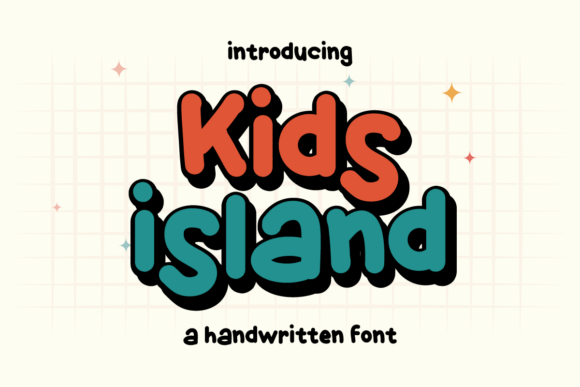
Unlock the Magic of Kids Island Font
Who among us hasn’t had a moment where they see a beautiful, hand-drawn font and just can’t help but feel a surge of creative energy? For designers, it’s that spark of inspiration that can lead to something truly special. And that’s exactly what the Kids Island Font is all about – bringing joy and creativity to any project.
Designed to evoke a sense of playfulness and friendliness, Kids Island Font is perfect for kid-themed designs, classroom projects, and cheerful branding. With its soft curves and bubbly style, this font is sure to add a happy, colorful vibe to any design. Whether you’re a seasoned pro or just starting out, the Kids Island Font is an invaluable addition to any designer’s toolkit.
Kids Island Font Key Features
- Unique Characteristics: Designed specifically for children’s educational materials, features a playful and engaging style with bold lines and rounded shapes
- Language Support: Supports Latin-based languages, including English, Spanish, French, and many others
- Font Variations: Includes 6 font weights (Light, Regular, Medium, Bold, Heavy, Black) and 3 font styles (Regular, Italic, Bold Italic)
Kids Island Font Review
Overall, I think the Kids Island Font has a lot of potential. ✨ The playful, whimsical feel it brings to any design project is sure to capture the attention of kids and parents alike. The font’s beachy, tropical vibe is also perfect for summer-themed designs or any project that needs a touch of sunshine.
One thing that stands out about the Kids Island Font is its versatility. ✨ It can be used for a wide range of applications, from children’s books and educational materials to party invitations and social media graphics. The font is also highly customizable, making it easy to adjust the color, size, and style to fit your design needs.
However, there are a few limitations to consider. ⚠️ For one, the font may not be suitable for formal or professional designs, as its playful feel can come across as too casual. Additionally, some users may find the font’s irregular shapes and lines to be a bit distracting or difficult to read, particularly in larger sizes.
Overall, I would recommend the Kids Island Font for designers who are looking to add a touch of whimsy and fun to their projects. Just be sure to use it judiciously and consider the audience and purpose of your design.
- Perfect for children’s designs and summer-themed projects
- Versatile and suitable for a wide range of applications
- May not be suitable for formal or professional designs
- Irregular shapes and lines may be distracting in larger sizes
Tips for Getting the Most Out of Kids Island Font
Some tips for getting the most out of Kids Island Font include:
- Using it in conjunction with bright and playful colors to create a fun and engaging design.
- Experimenting with different font sizes and styles to add visual interest.
- Using it to create a consistent brand identity across multiple designs.
Common Use Cases for Kids Island Font
Kids Island Font is commonly used in:
- Children’s book covers and illustrations.